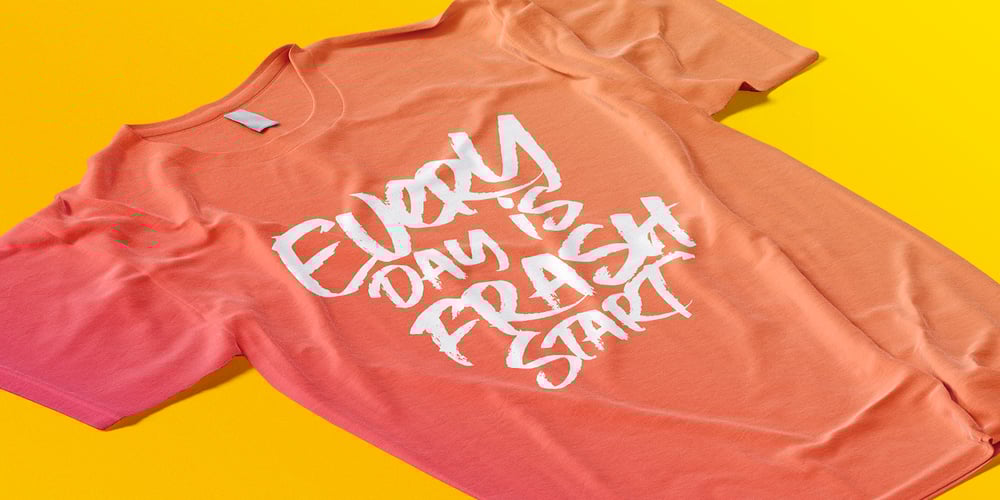
Suprime
Suprime font
Suprime Font Family was designed by Anton Didenko and published by Kavoon. Suprime contains 3 styles and family package options. Supreme a beautiful collection of hand-lettered modern calligraphy fonts.